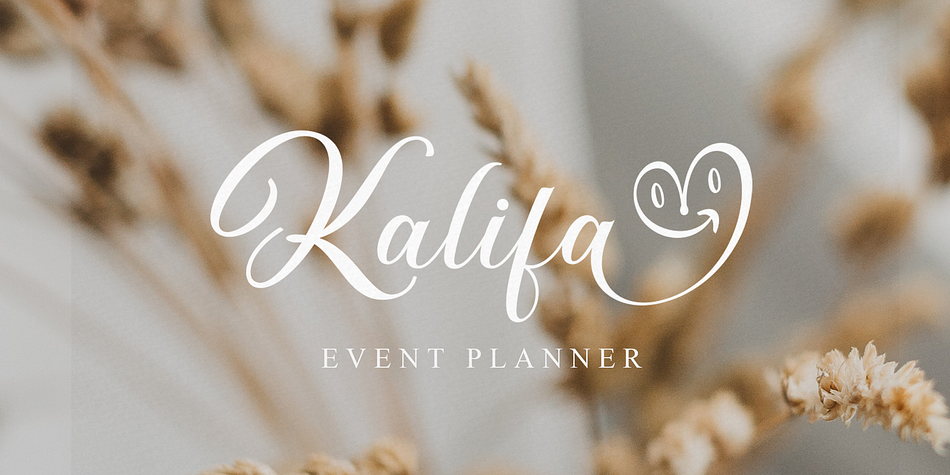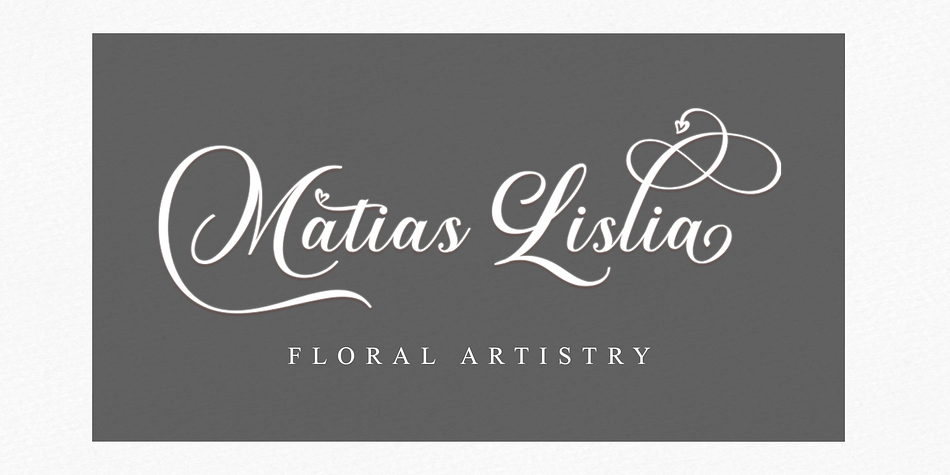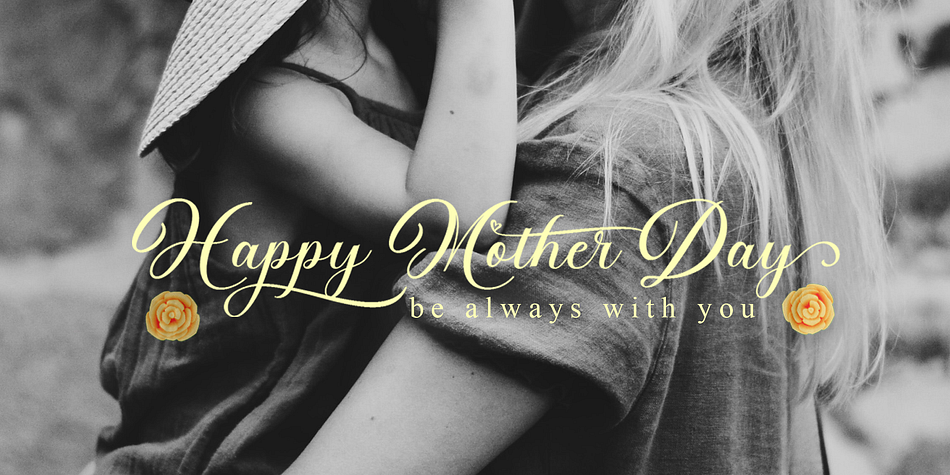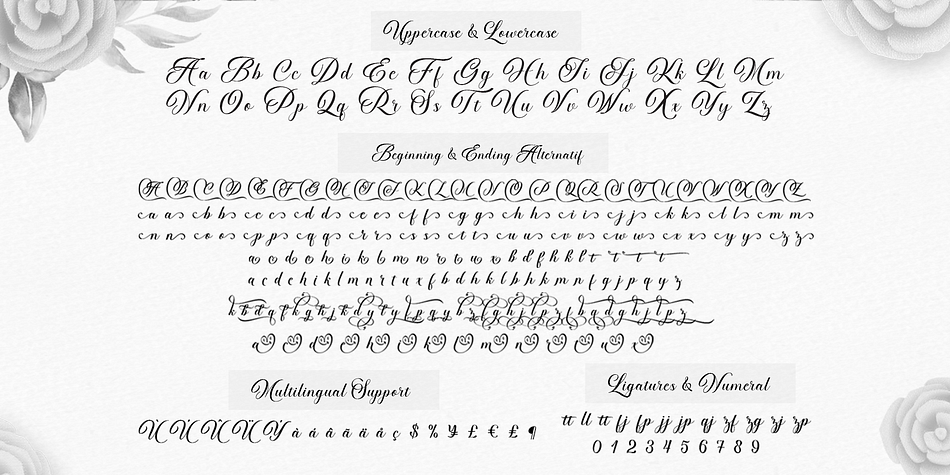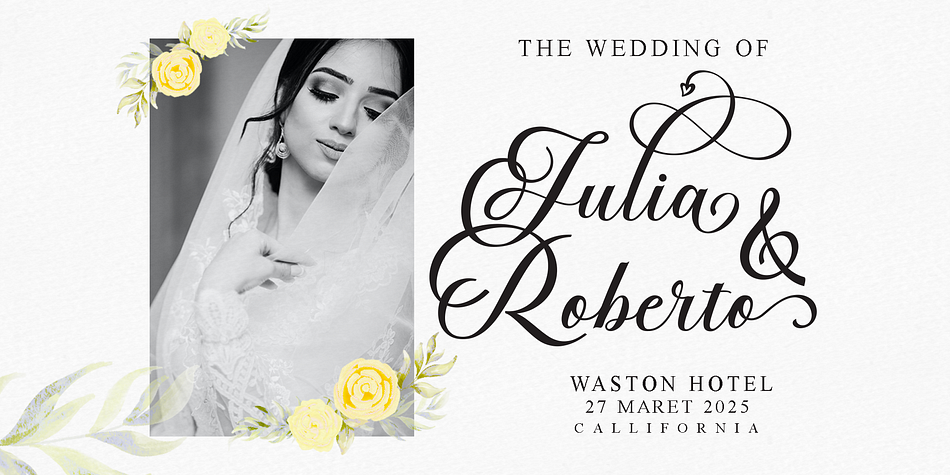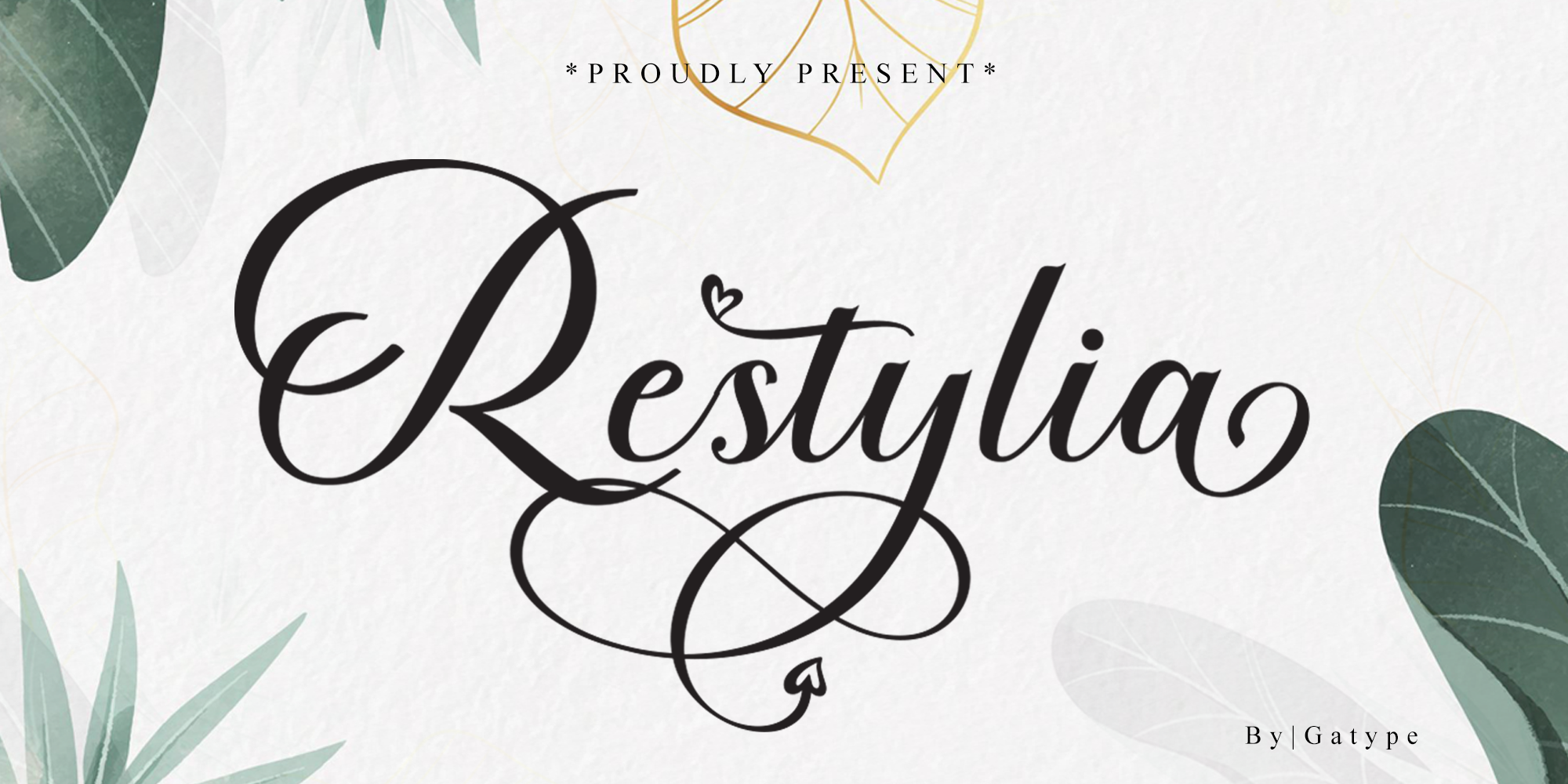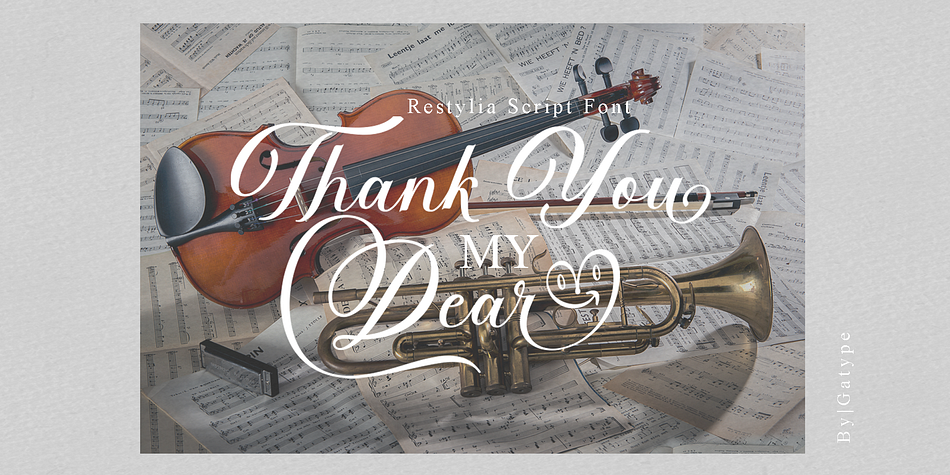
Restylia
Restylia is a brush script font family published by Gatype.
Restylia Script is elegant calligraphy font. This font is casual and pretty with swashes. Can used for various purposes. such as logo, product packaging, wedding invitations, branding, headlines, signage, labels, signature, book covers, posters, quotes and more.
Restylia Script features OpenType stylistic alternates, ligatures and International support for most Western Languages is included.To enable the OpenType Stylistic alternates, you need a program that supports OpenType features such as Adobe Illustrator CS, Adobe Indesign & CorelDraw X6-X7, Microsoft Word 2010 or later versions.